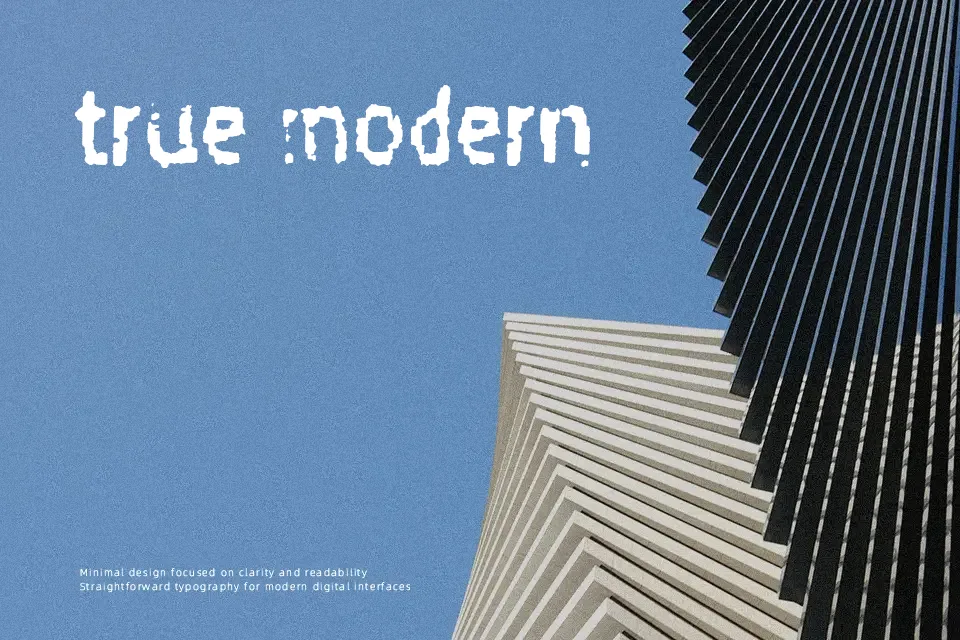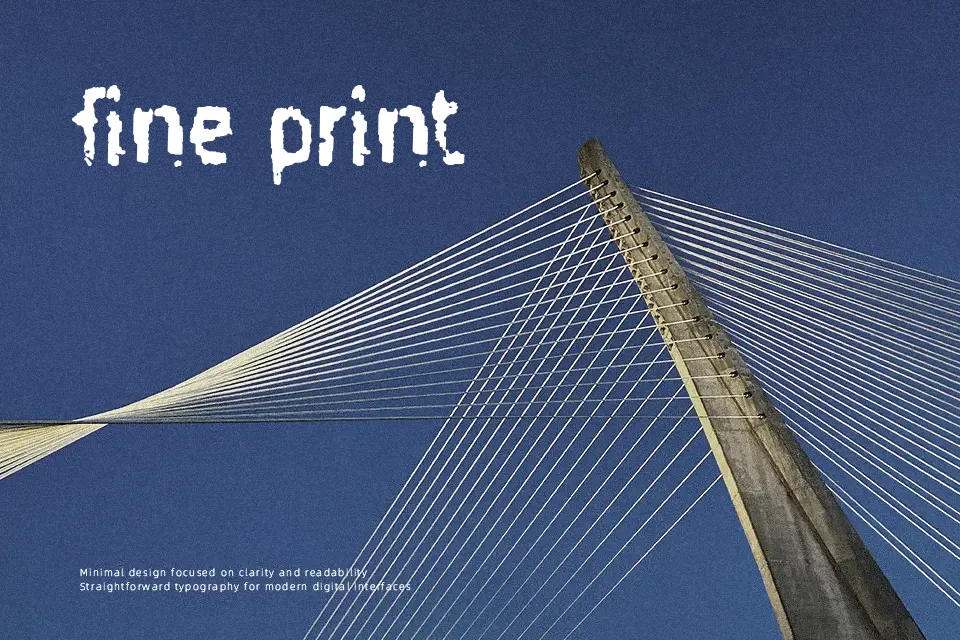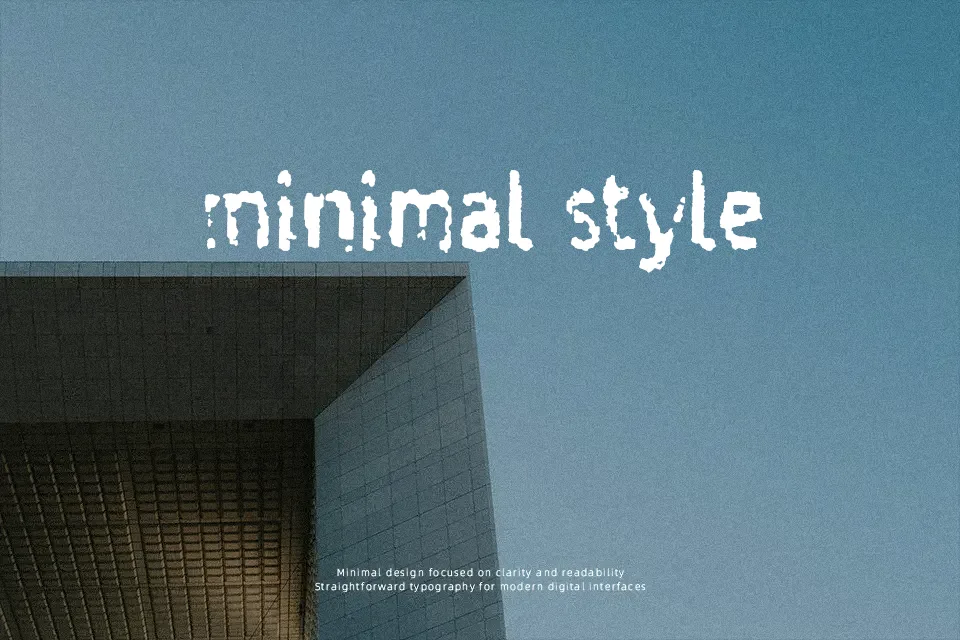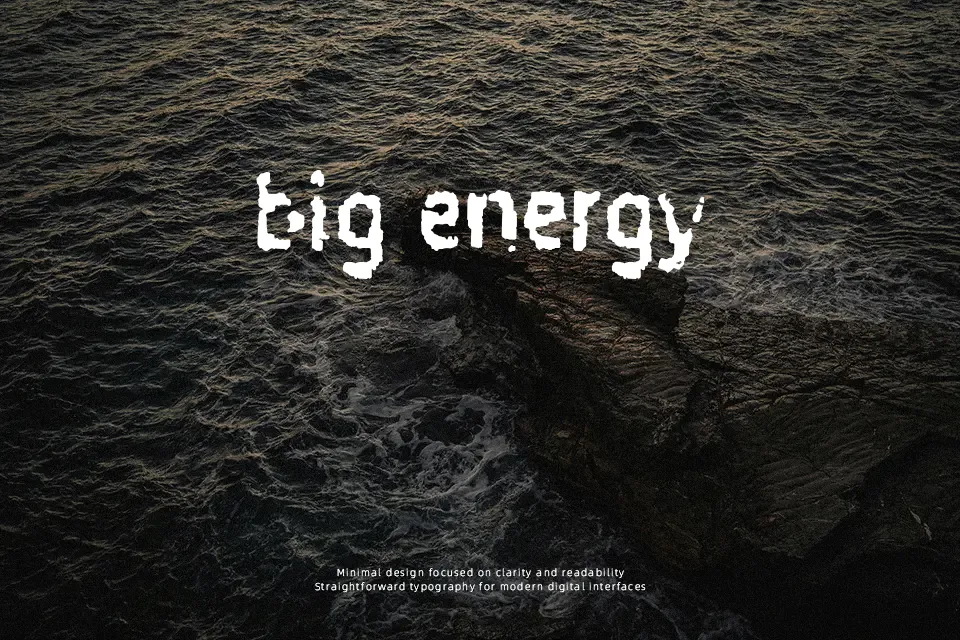
Taigatrust Font
Designed by Michael Bulgrin
Taigatrust Font uses heavily weathered letterforms with fractured edges, uneven internal texture, and a deliberately rough display presence. Its uppercase-driven structure reads most clearly when set large, where the damaged shapes and dense strokes can remain distinct. Spacing appears compact and the proportions are assertive rather than neutral, making the typeface useful for punchy titles and graphic-led layouts. It is a practical choice when a worn, destructive texture is part of the visual direction. The distressed details become harder to resolve in small sizes, so the design is less comfortable for extended reading.
Best For: music poster headlines,album artwork,streetwear graphics,horror-themed titles
Perfect for advertising, headline, and music, with a dark and decorative style.